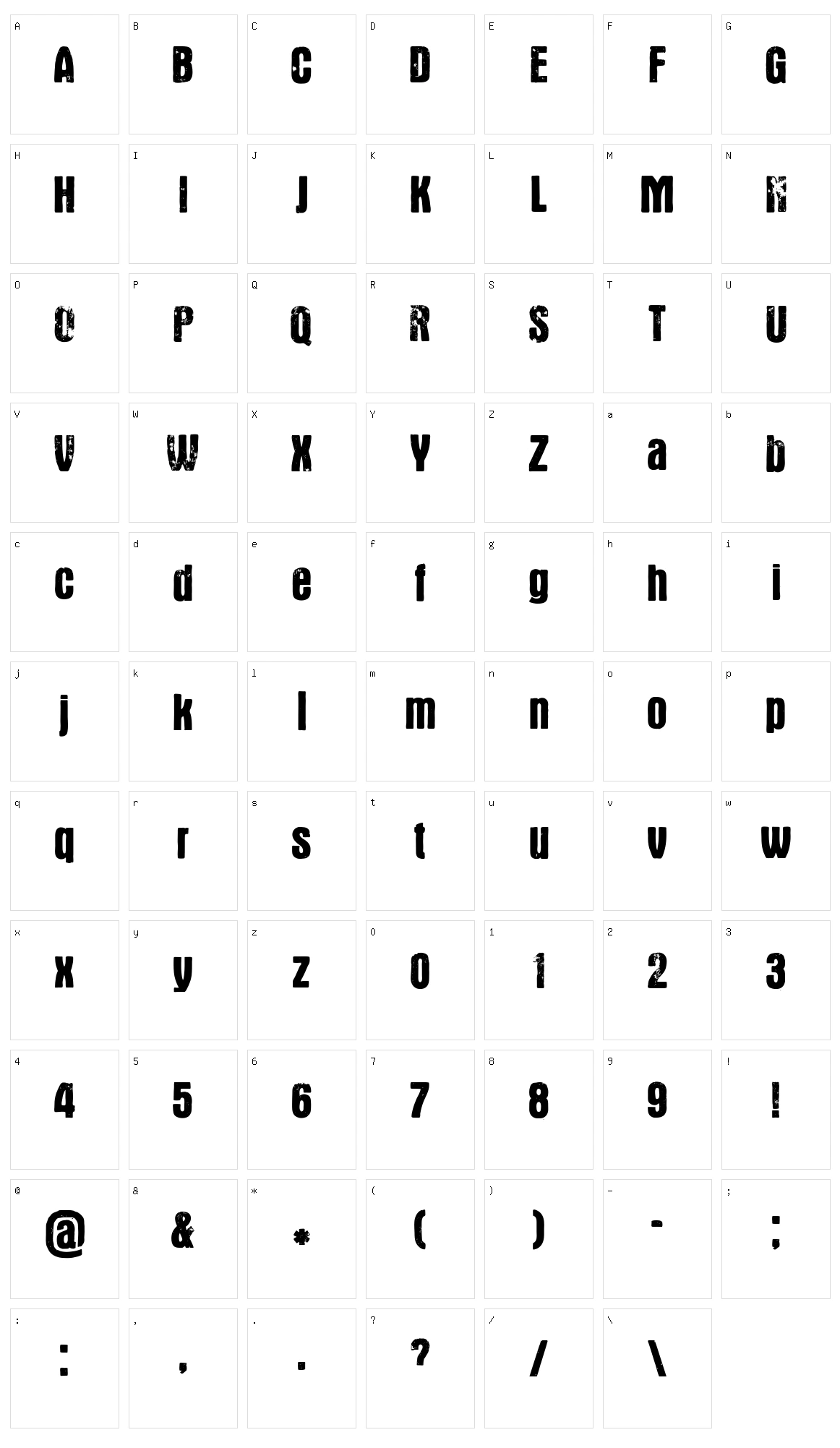
The free font Gustav is carefully designed by Michael Schinköthe, showcasing a thoughtful balance of creativity and usability and falls under the Eroded font style. When you download the ZIP file, it contains only 145.15 KB of font files, making it lightweight and quick to download. Please review the license details below to understand permitted usage and distribution rights. If license information is not available, we recommend using this font for personal projects only or contacting the author directly for commercial usage permissions.